The Most Beautiful Feminine Typefaces
In the world of design, typography plays a pivotal role in conveying a brand’s message and personality. When it comes to targeting a female audience, selecting the right typeface is crucial to create a lasting impression. Feminine typefaces, with their delicate strokes, elegant curves, and graceful forms, offer a powerful tool to evoke emotions, create a sense of sophistication, and establish a strong connection with your audience.
Whether you’re designing a logo, crafting a website, or creating marketing materials, incorporating feminine typefaces can enhance the visual appeal and effectively communicate your brand’s identity. These typefaces possess a unique charm that can capture attention, spark interest, and leave a lasting impression on your target audience.
Why Feminine Typefaces Matter
Feminine typefaces are more than just pretty letters; they are a strategic design element that can significantly impact how your brand is perceived. By incorporating these typefaces into your designs, you can:
- Enhance Brand Identity : Feminine typefaces can help you create a distinct brand personality that resonates with your target audience. Whether you aim for elegance, playfulness, or sophistication, the right typeface can effectively communicate your brand’s message.
- Evoke Emotions : The fluidity and grace of feminine typefaces can evoke a range of emotions, from joy and excitement to calmness and serenity. By carefully selecting a typeface that aligns with your brand’s values, you can create an emotional connection with your audience.
- Boost Visual Appeal : Feminine typefaces add a touch of sophistication and visual interest to any design. Their unique characteristics can make your designs stand out and capture attention in a crowded marketplace.
Exploring the Versatility of Feminine Typefaces
Feminine typefaces offer a wide range of styles and variations, allowing you to find the perfect fit for your design needs. From delicate script fonts to elegant serifs, the possibilities are endless. In this article, we’ll explore some of the most captivating feminine typefaces that can elevate your designs and help you connect with your target audience on a deeper level.
Free Arastin Font
The Arastin font is a romantic-style typeface that exudes femininity and elegance. Its flowing script and delicate curves create a sense of grace and sophistication, making it an ideal choice for wedding invitations, greeting cards, and branding materials. The font’s versatility allows it to seamlessly blend into various design aesthetics, adding a touch of charm and personality to any project.
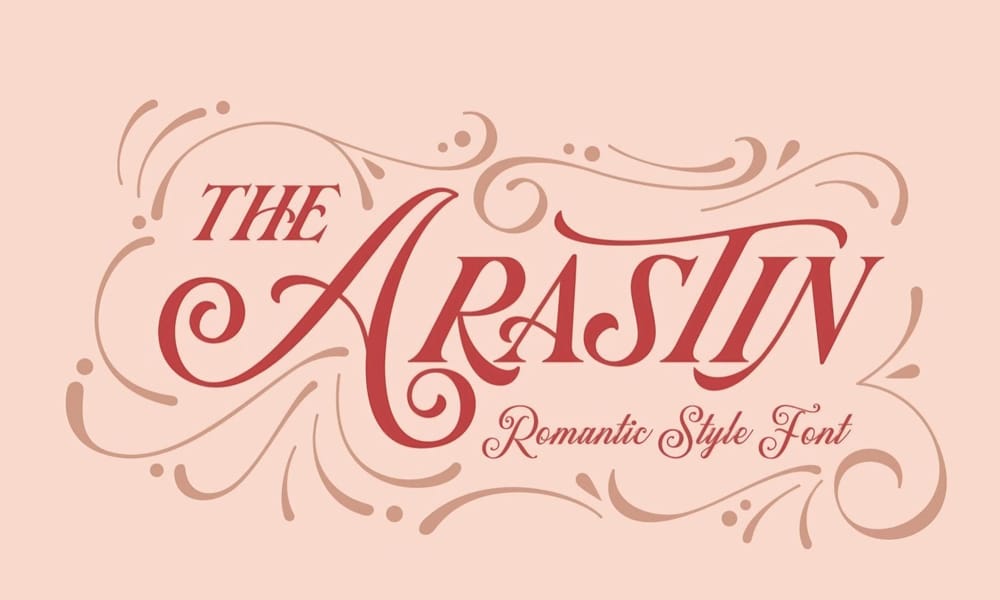
Roxie Rossa – Ligature Serif Font
Roxie Rossa is a classic modern typeface that embodies feminine charm and sophistication. Its unique ligature serifs add a touch of elegance and refinement, making it a perfect choice for branding, editorial design, and logo creation. The font’s clean lines and balanced proportions ensure legibility and visual appeal, while its overall aesthetic exudes confidence and style.
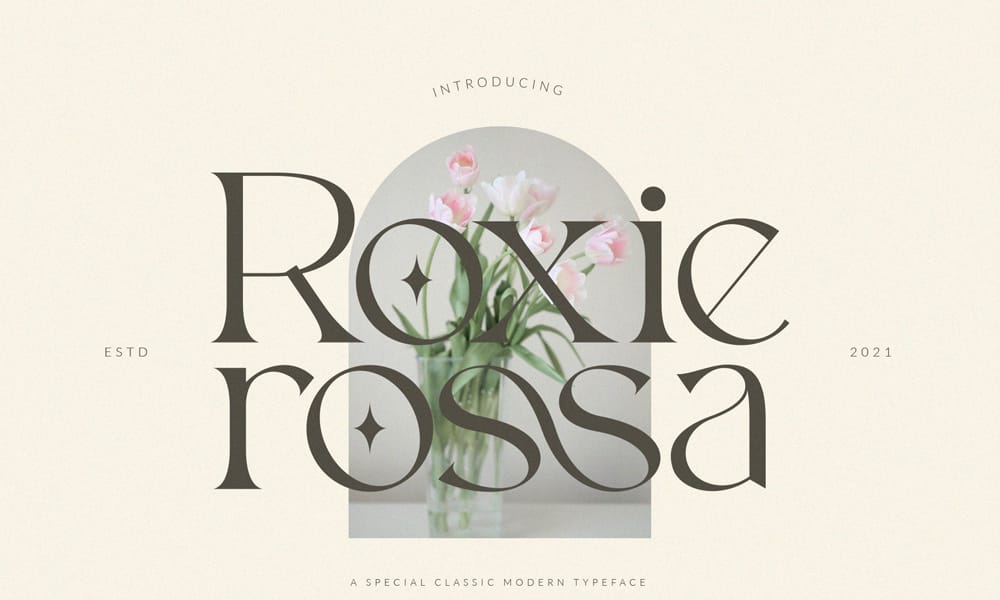
Alex Brush
Alex Brush is a feminine calligraphy font that exudes elegance and artistry. Its fluid strokes and graceful curves create a sense of movement and rhythm, making it an ideal choice for invitations, greeting cards, and branding materials. The font’s handcrafted aesthetic adds a personal touch to designs, conveying warmth and authenticity.
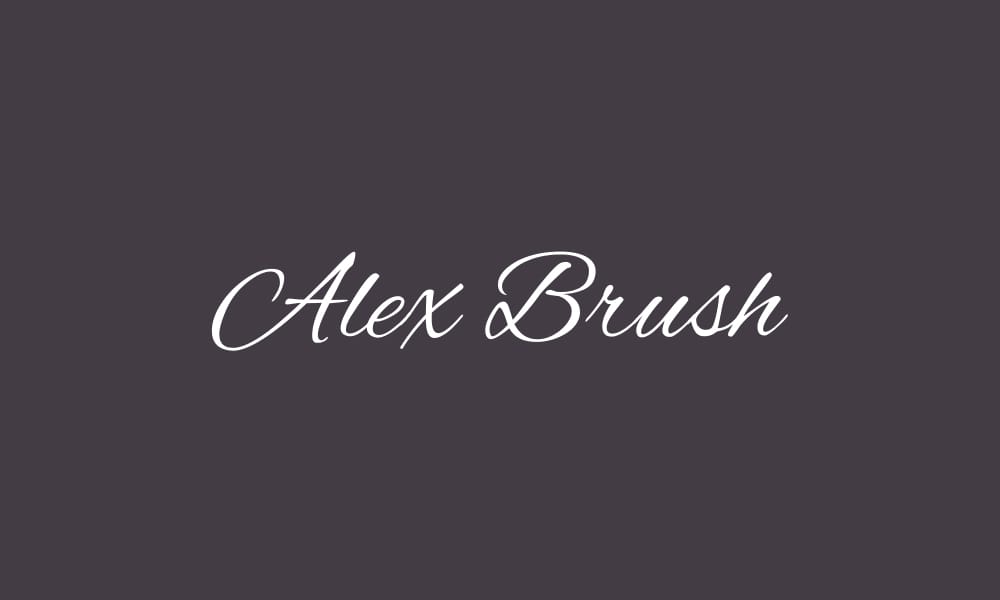
Raustila Typeface
Raustila is a feminine typeface that embodies a playful yet sophisticated charm. Its flowing script and bouncy characters create a sense of joy and energy, making it a perfect choice for branding, social media graphics, and children’s products. The font’s versatility allows it to seamlessly adapt to various design styles, adding a touch of whimsy and personality.
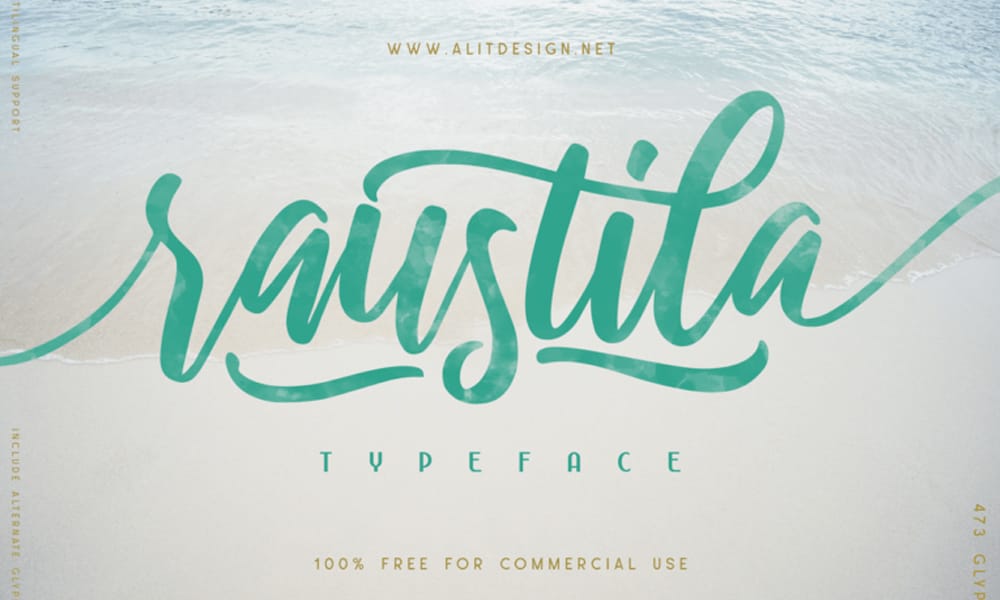
Rouge Script Font
Rouge Script is a feminine typeface that exudes elegance and refinement. Its flowing script and delicate curves create a sense of grace and sophistication, making it an ideal choice for wedding invitations, greeting cards, and branding materials. The font’s classic aesthetic adds a timeless touch to designs, conveying a sense of tradition and heritage.
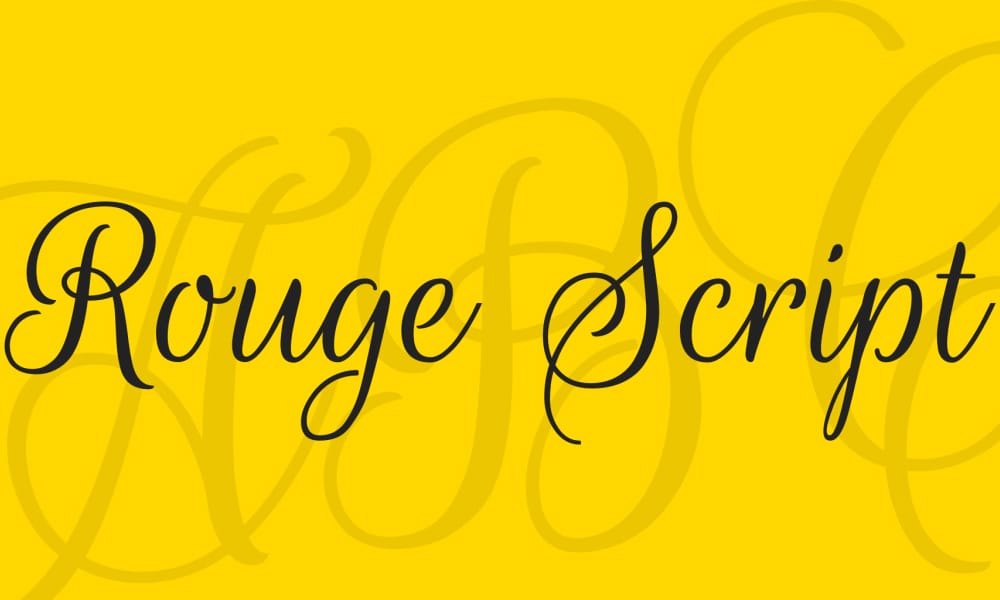
Ms Madi Font
Ms Madi is a feminine script font that embodies a modern and minimalist aesthetic. Its clean lines and flowing curves create a sense of effortless elegance, making it a perfect choice for branding, social media graphics, and editorial design. The font’s versatility allows it to seamlessly integrate into various design styles, adding a touch of sophistication and refinement.
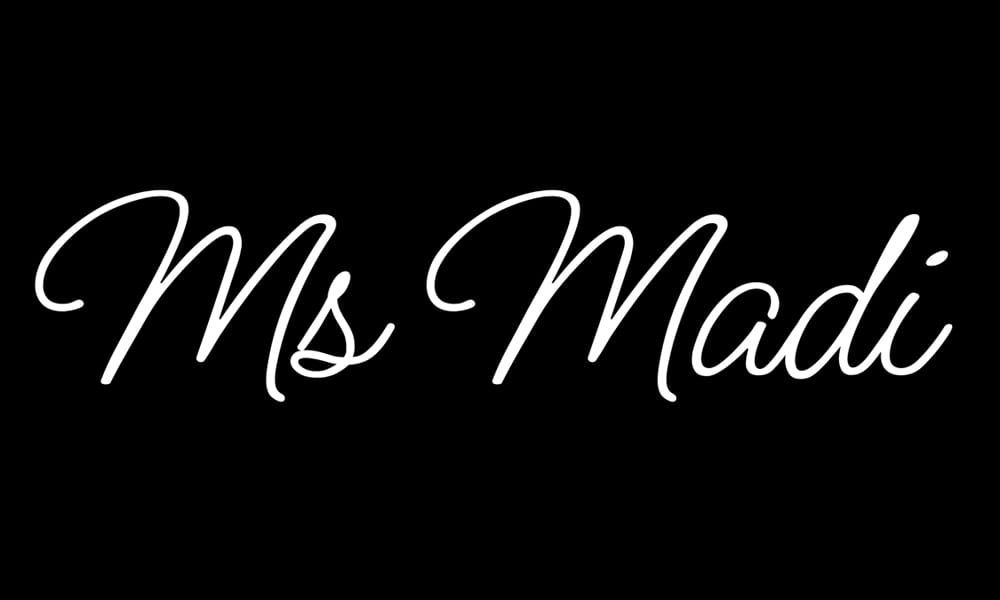
Balqis Font
Balqis is a feminine calligraphy font that exudes grace and artistry. Its fluid strokes and elegant curves create a sense of movement and rhythm, making it an ideal choice for invitations, greeting cards, and branding materials. The font’s handcrafted aesthetic adds a personal touch to designs, conveying warmth and authenticity.
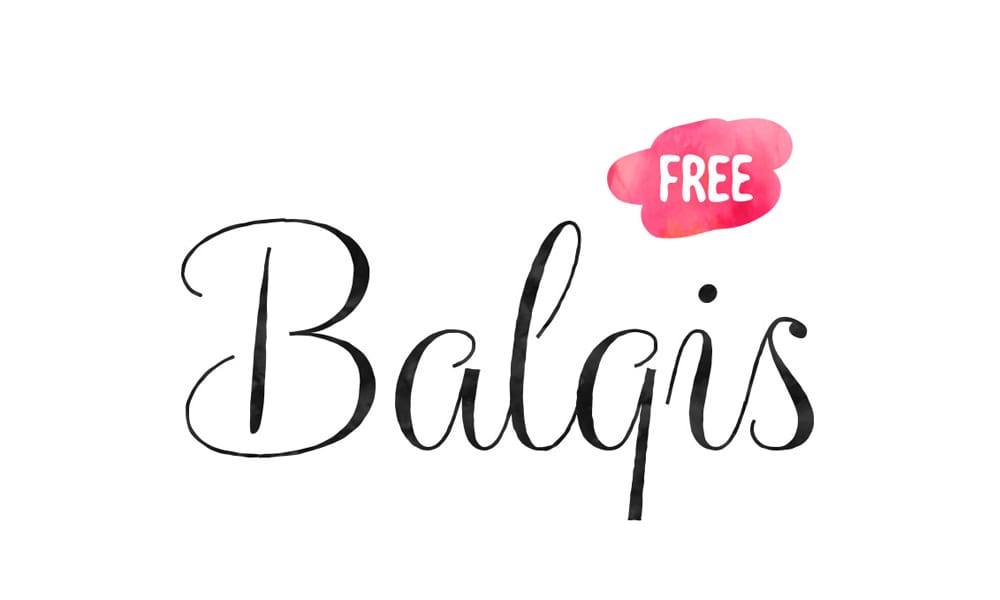
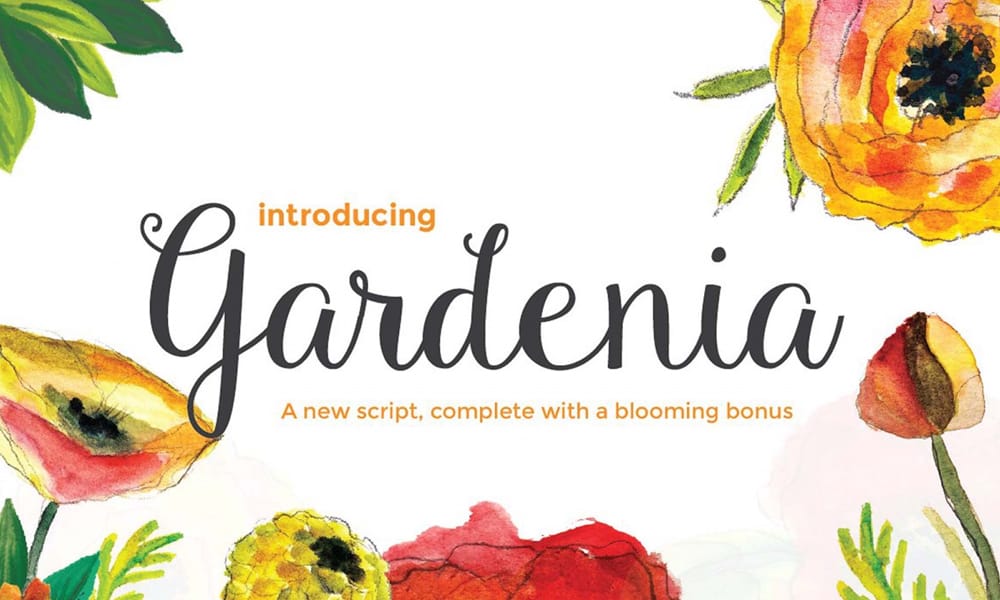
Priscilla Script
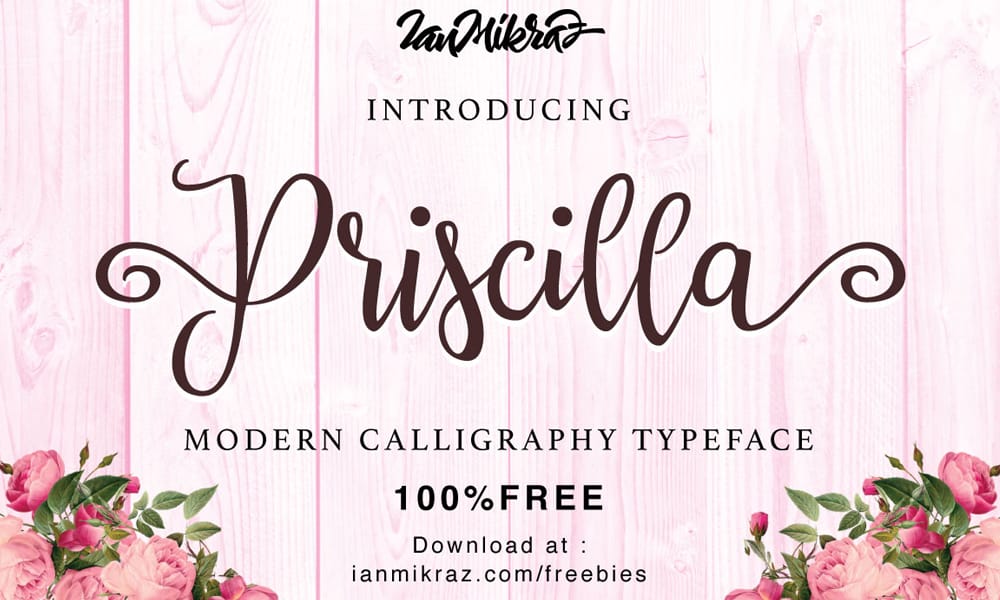
Shathika Script
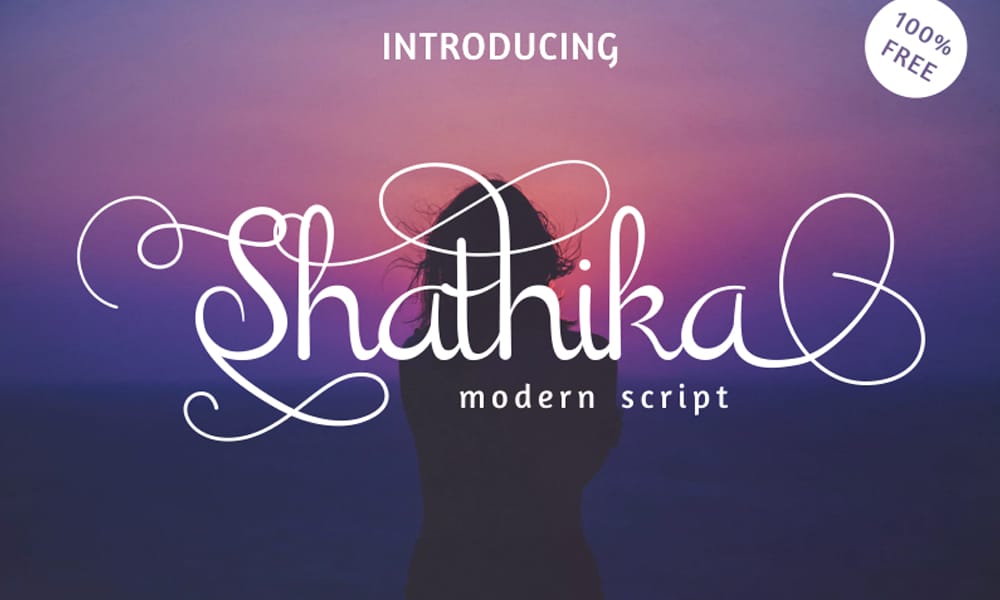
Kleymissky Font
Rachella Script
Raleway Font
Allura Font
Scriptina Font
Salmela Font
Stay Classy Font
Bainley Modern Feminine Typeface
Rottarity Feminine + Webfonts
Nebulla – Feminine Creative Typeface
Anistton – Feminine Font
Risska Typeface
Ansbach – The Feminine Signature